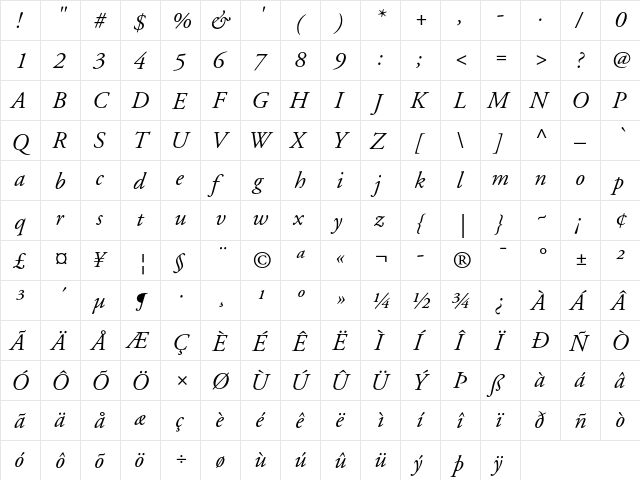
Adobe Garamond Italic
Design Context for Adobe Garamond Typeface
Adobe Garamond is a composed and adaptable typeface that performs quietly and consistently across a wide range of design contexts. Its italic angle brings a sense of urgency and motion to the letterforms.
Pro Tip: Use Adobe Garamond for emphasis, pull quotes, and subheadings where its slanted energy can add rhythm to the layout.